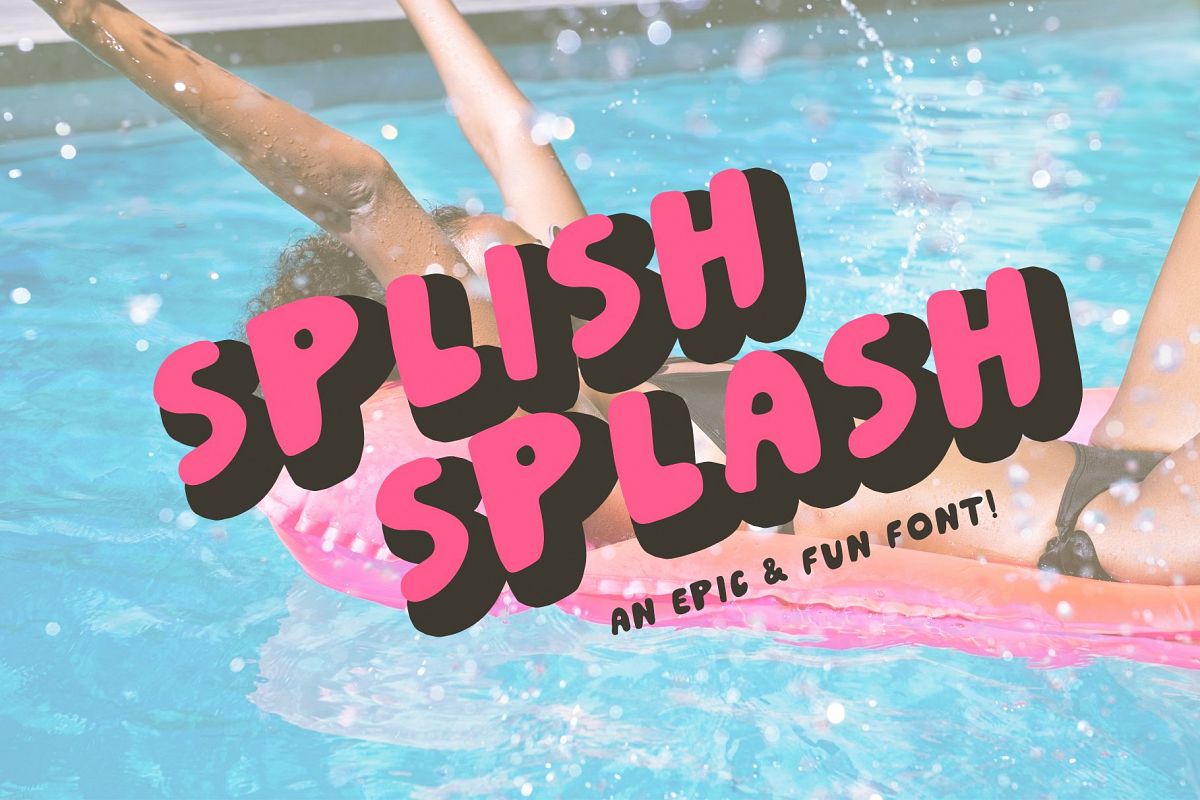
Splish Splash! is a handmade display font that is 100% fun - with both outline and solid options, numbers, punctuation, and a bunch of awesome coordinating illustrations, this font will solve all the problems you've been facing in your fun and festive designs.